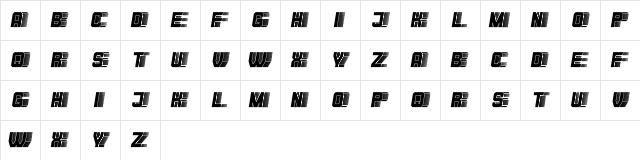
Blocchi Italic
Design Context for Blocchi Typeface
Blocchi is a composed and adaptable typeface that performs quietly and consistently across a wide range of design contexts. The slanted form adds forward momentum and visual energy.